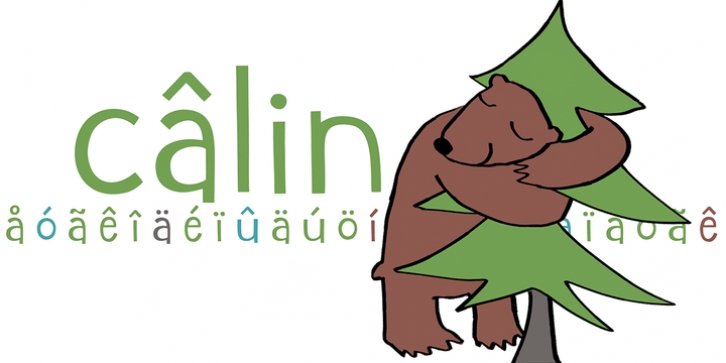
Digby is friendly, honest and active. Digby family includes three hand-drawn fonts: Digby, which has funk and chunk, and two weights of Digby Line, which is a distressed, hand-lettered line font. They work well together, in fact Digby Line Thin fits nicely over Digby Regular. All have a generous set of double letter ligatures.